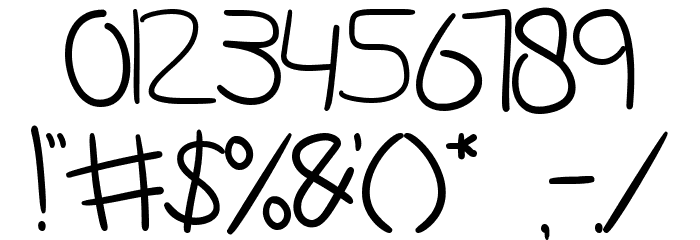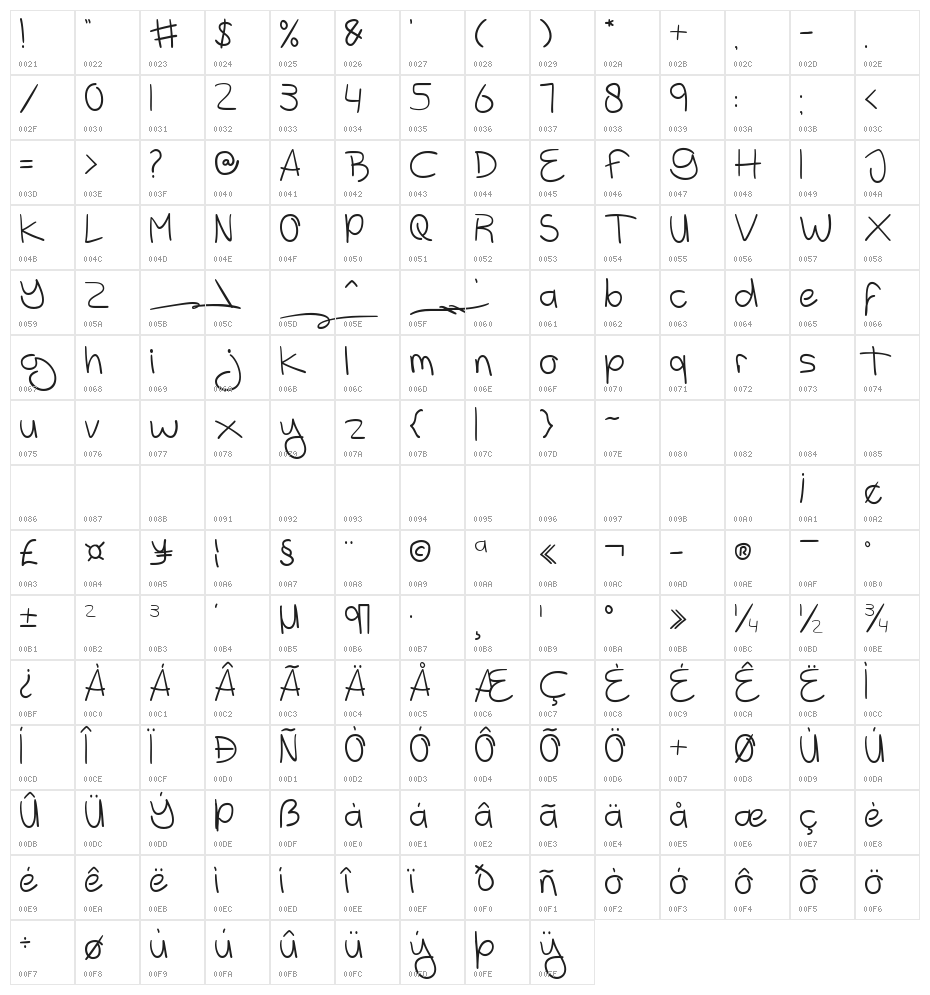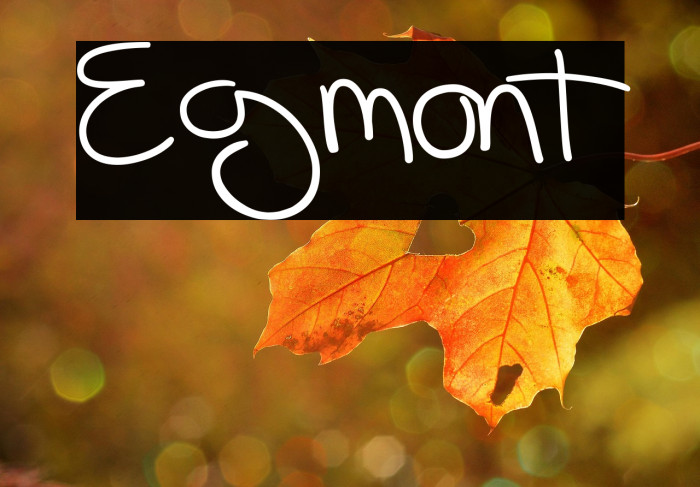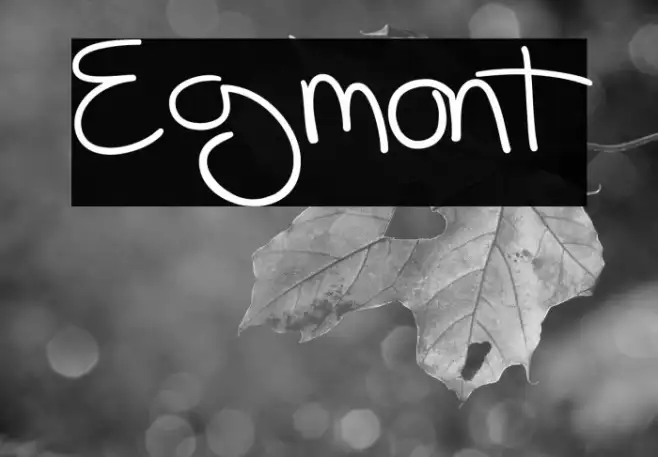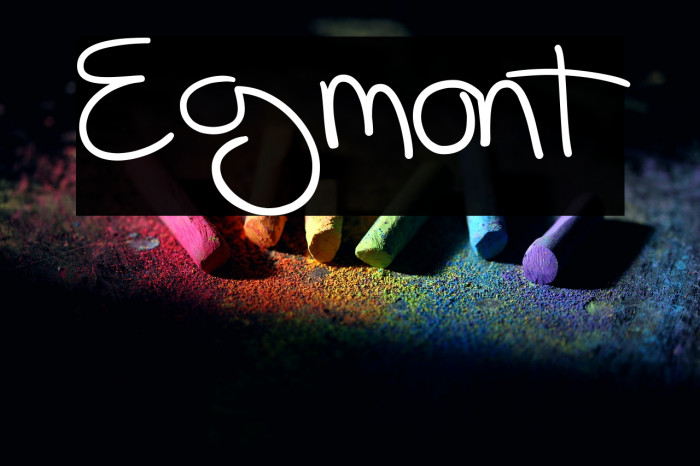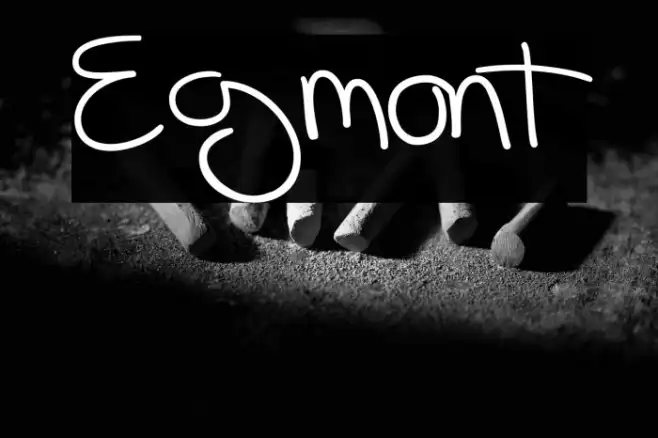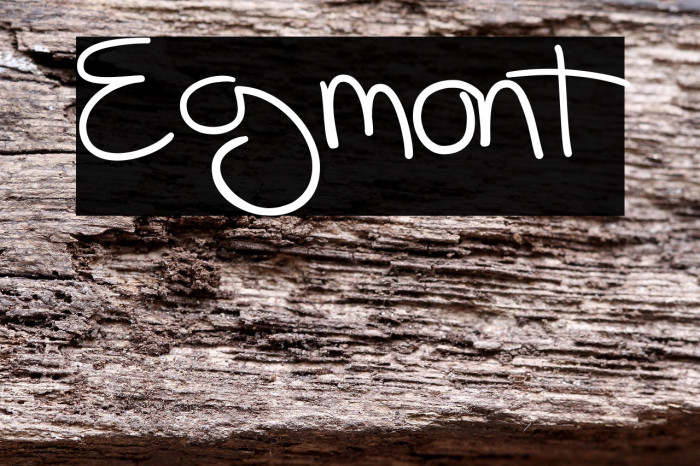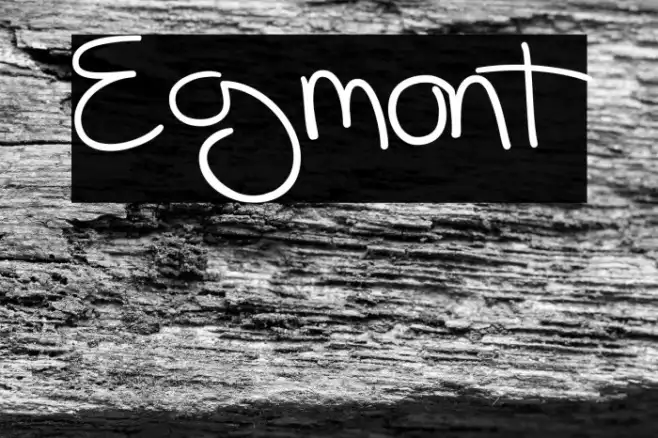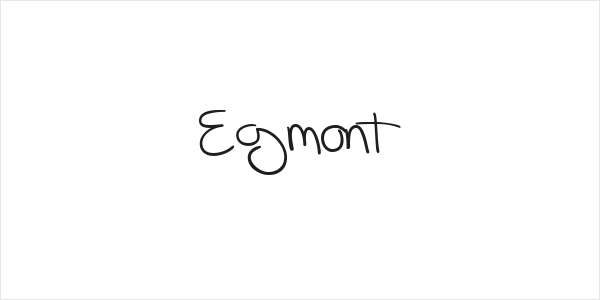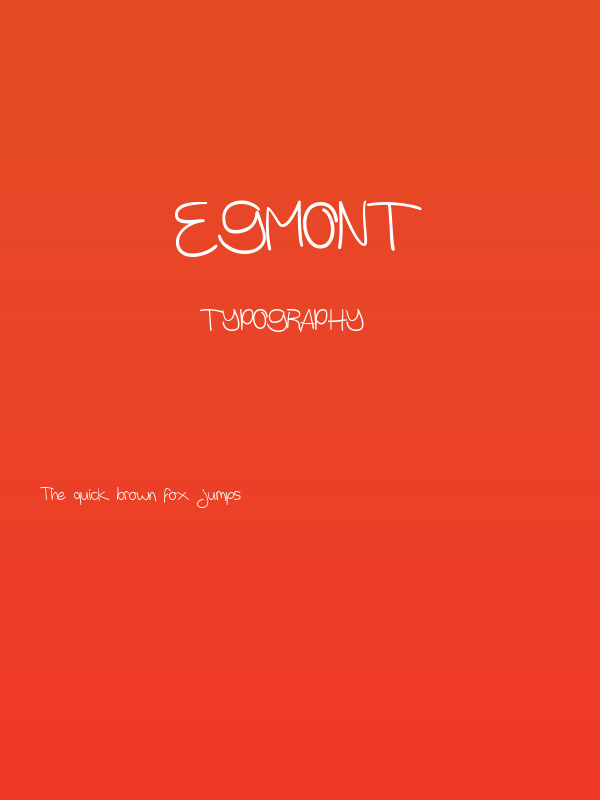
Egmont Font
Egmont Description
This playful and whimsical font features a handwritten style with a casual and friendly appearance. The characters are slightly irregular, adding to the charm and personality of the typeface. The strokes are smooth and rounded, giving it a soft and approachable feel. The uppercase and lowercase letters are well-balanced, with a consistent flow that enhances readability. The numbers and special characters maintain the same playful aesthetic, making this font versatile for various creative applications.
| Proposed Projects | Ideal for children's books, greeting cards, playful branding, and casual invitations. |